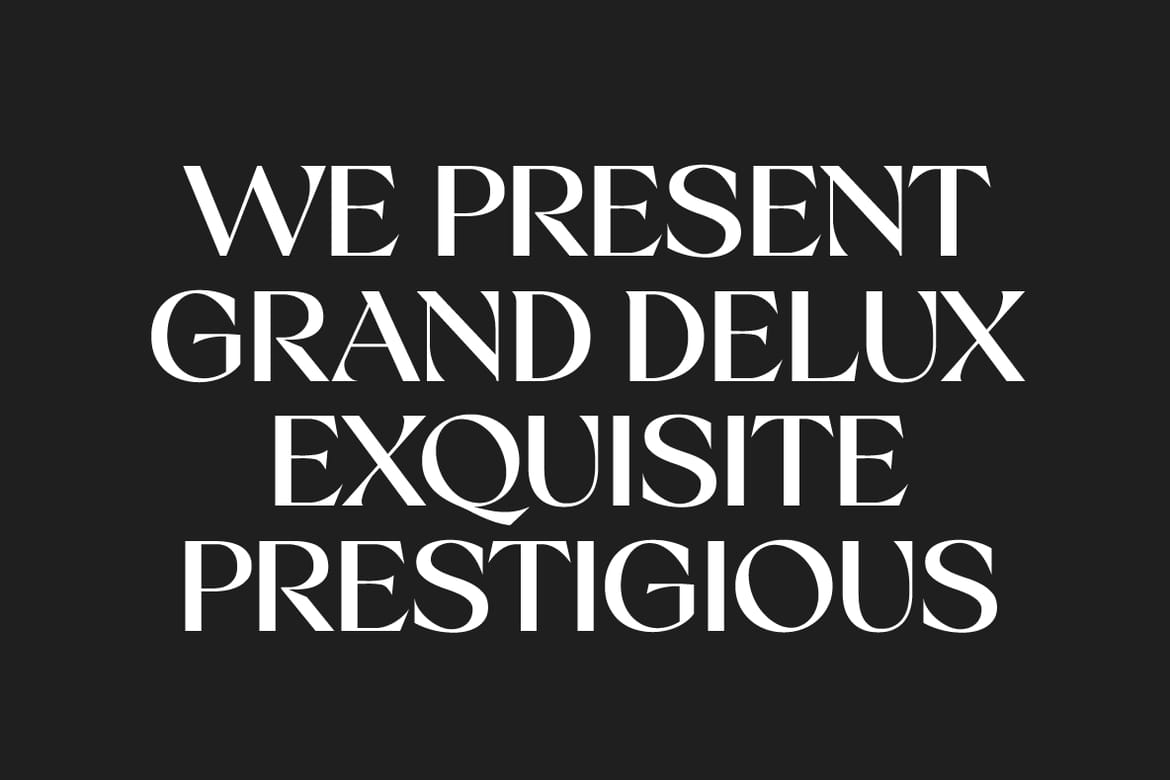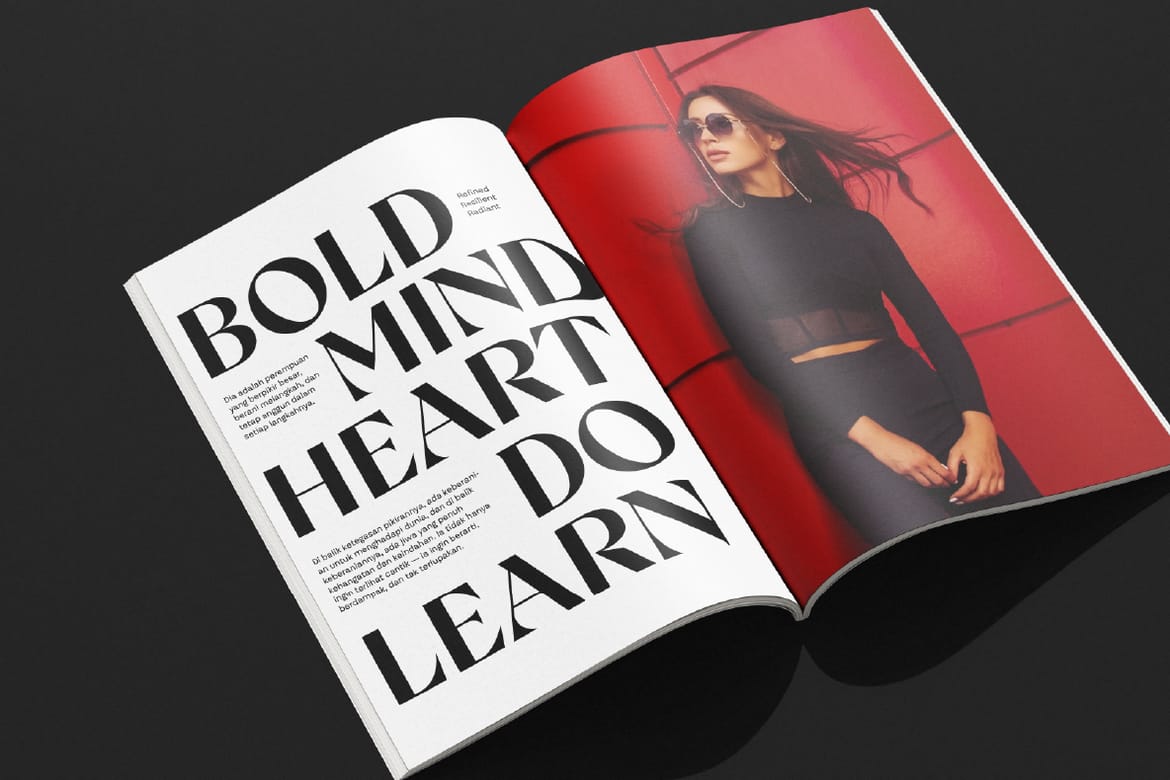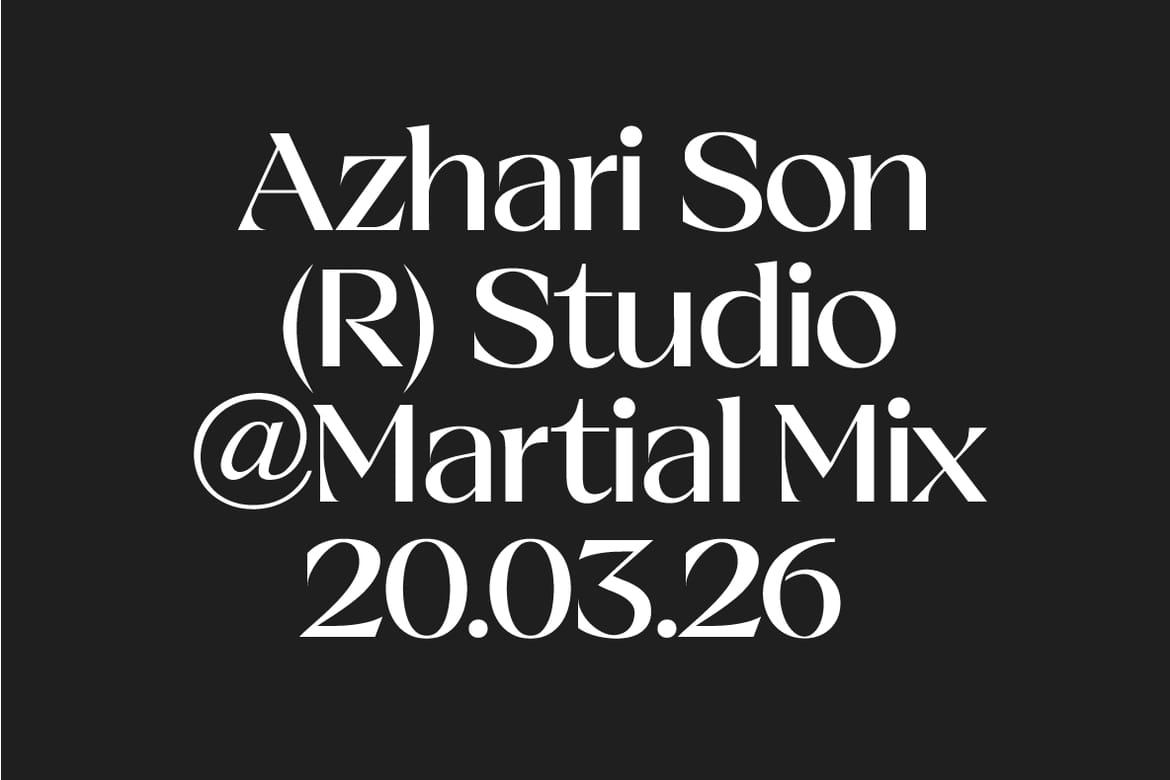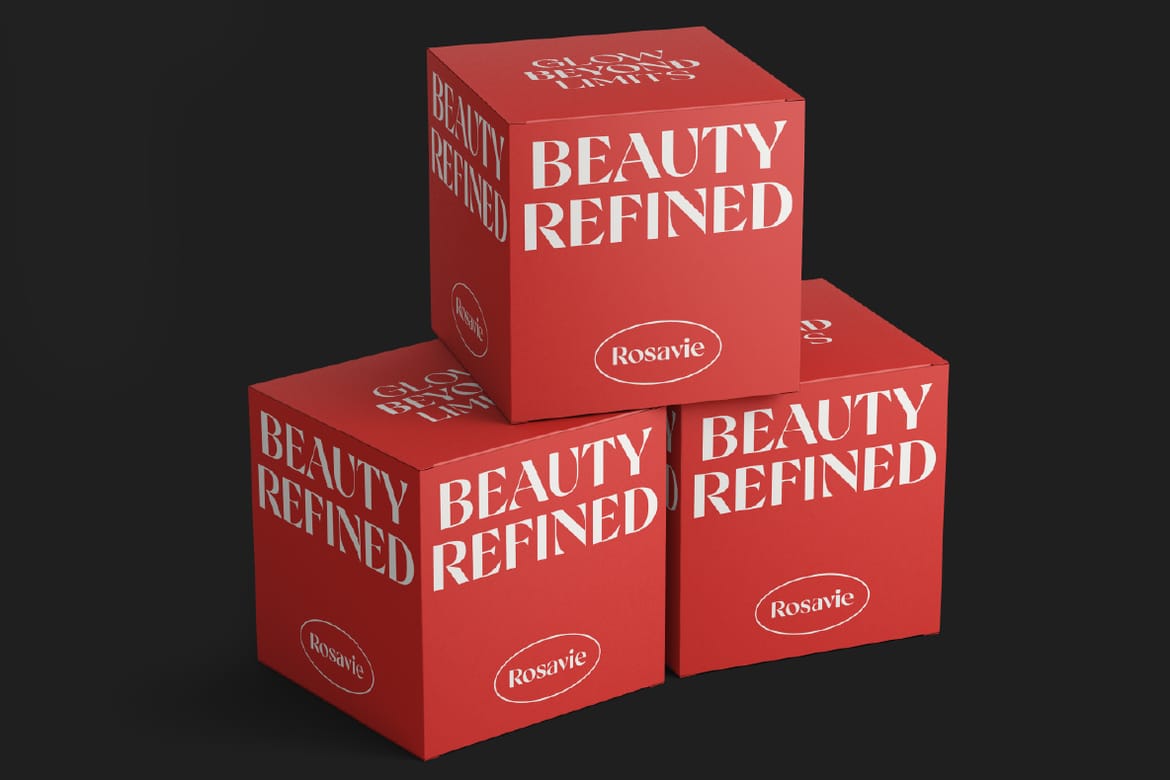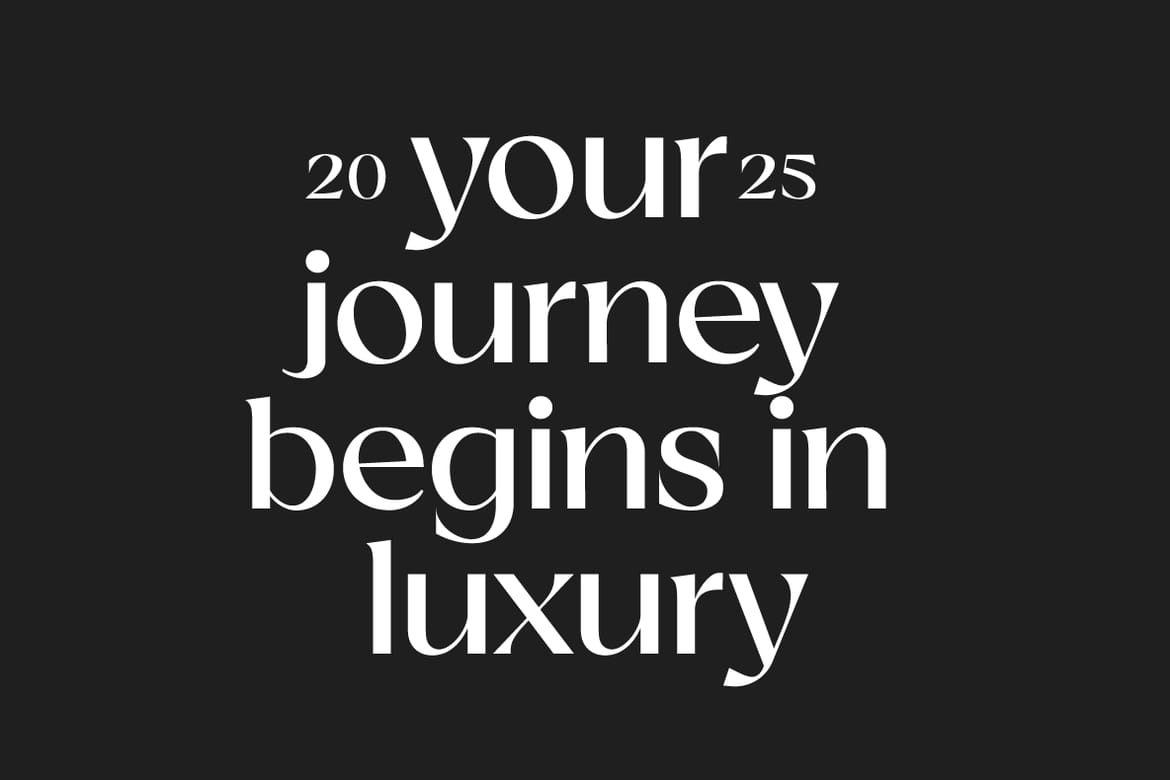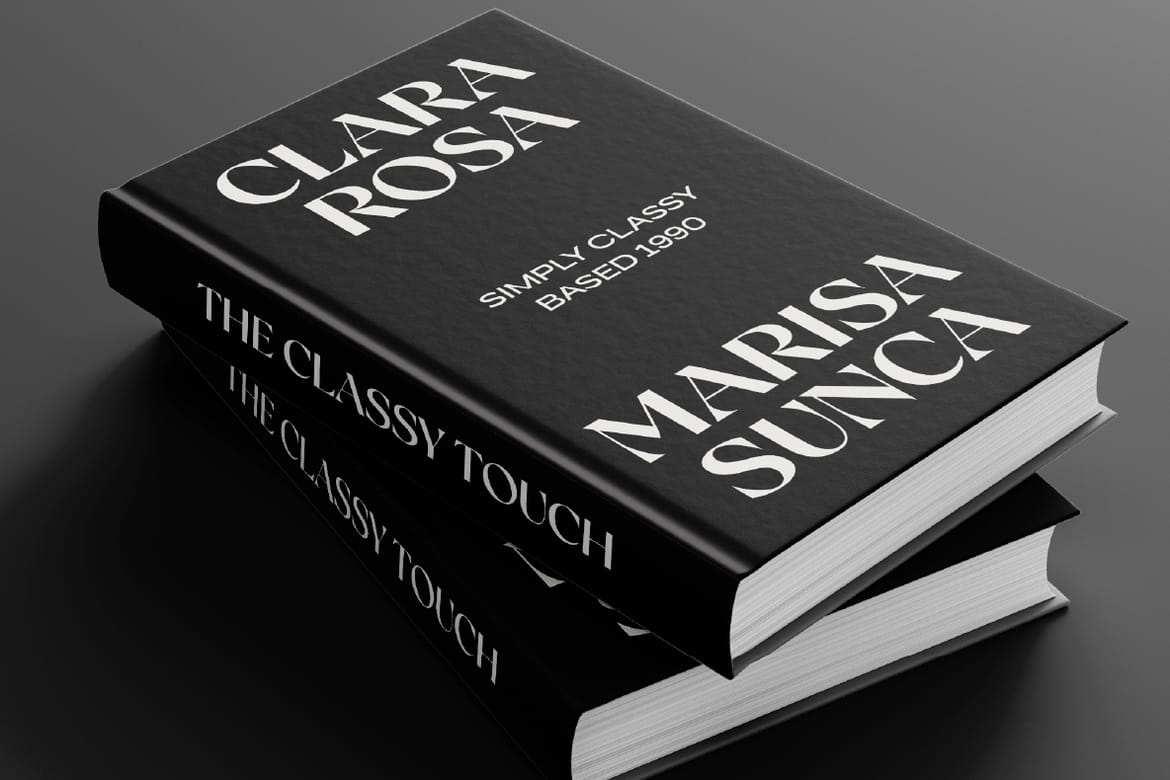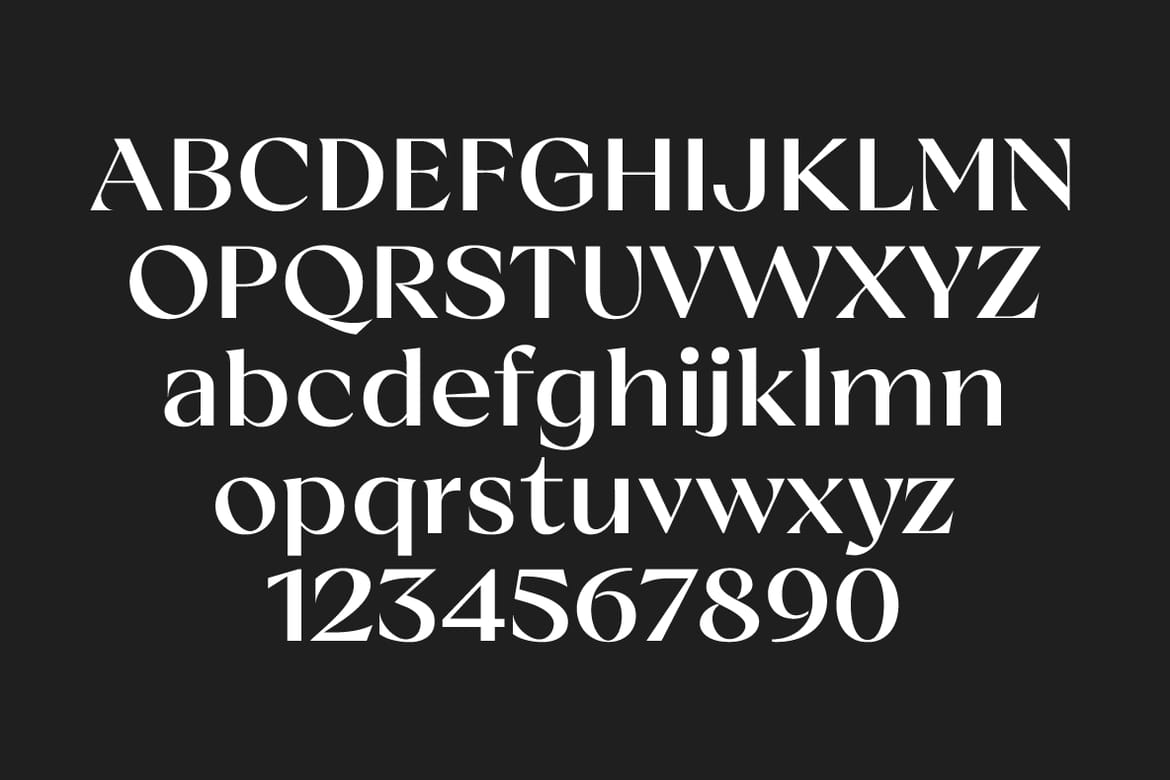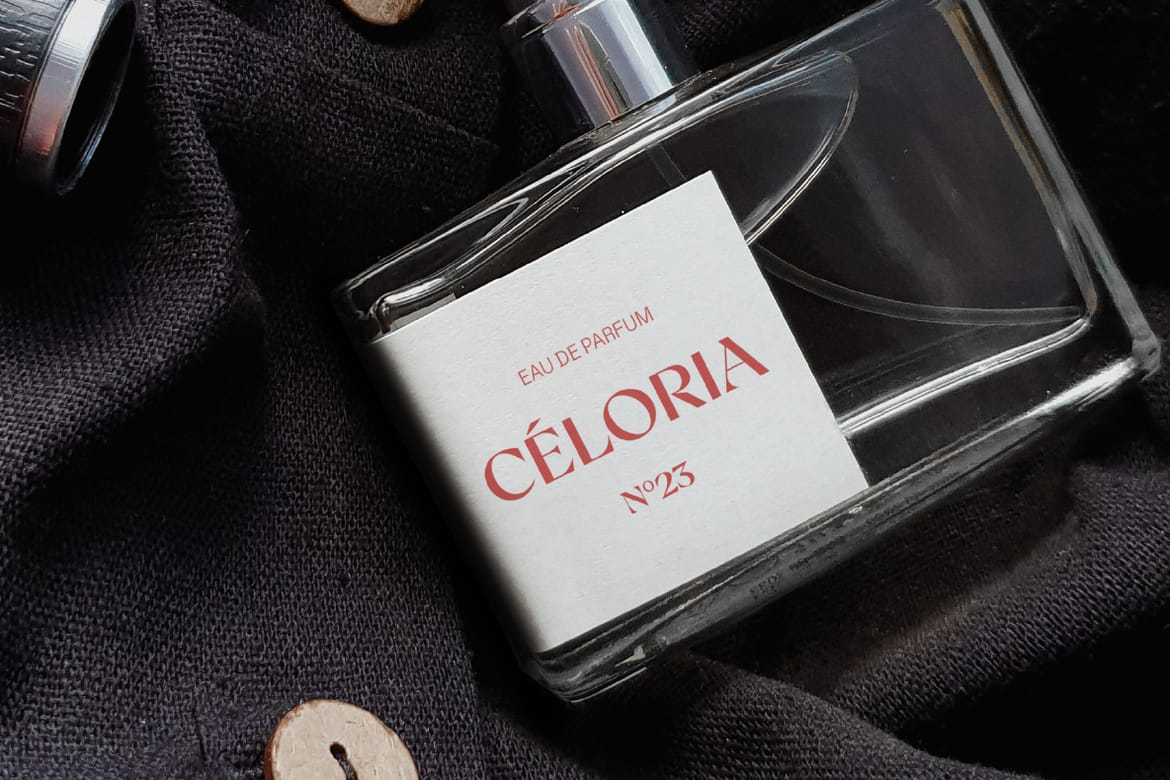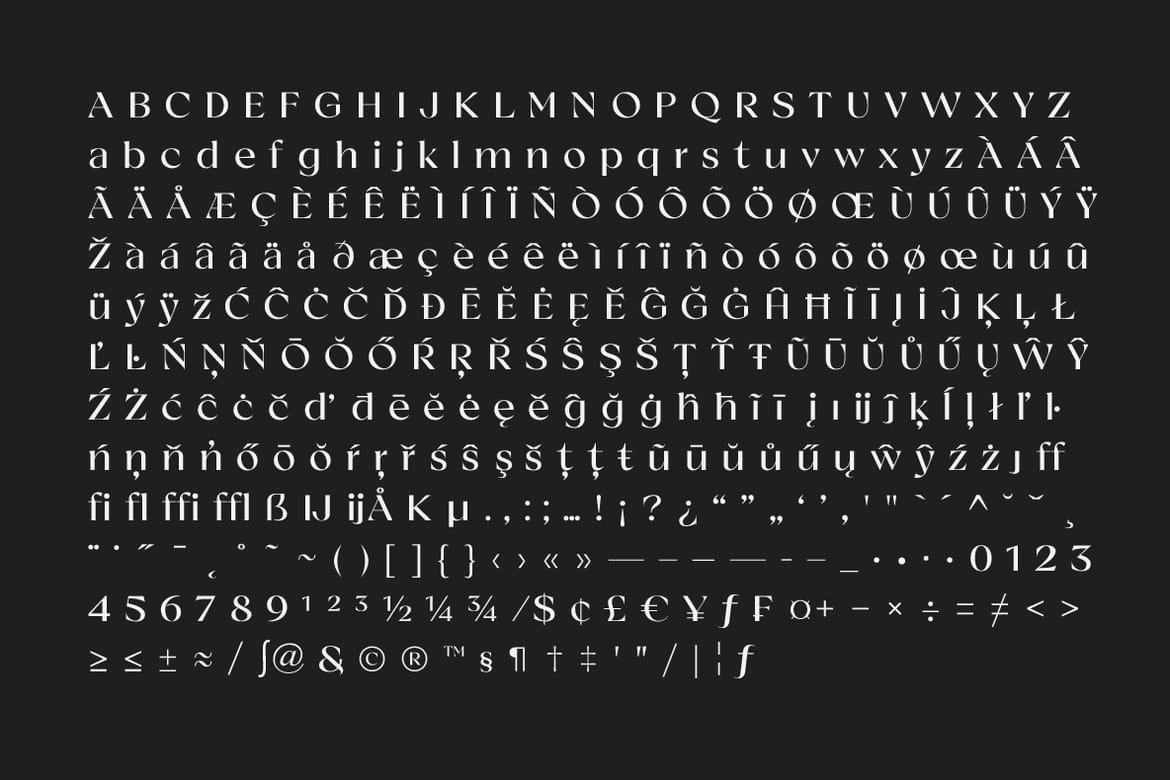
Mosie is a prestige serif typeface crafted to embody elegance, confidence, and timeless luxury. Inspired by classic editorial styles, Mosie features high contrast strokes and refined details that elevate any visual experience. With its graceful curves and sophisticated structure, this font is perfect for high-end branding, luxury packaging, premium editorial layouts, and creative projects that demand both beauty and authority.
Available in six meticulously designed weights from Light to Black, Mosie offers versatility without compromising its refined personality. Every letterform is thoughtfully balanced to deliver a harmonious and professional aesthetic across all applications.